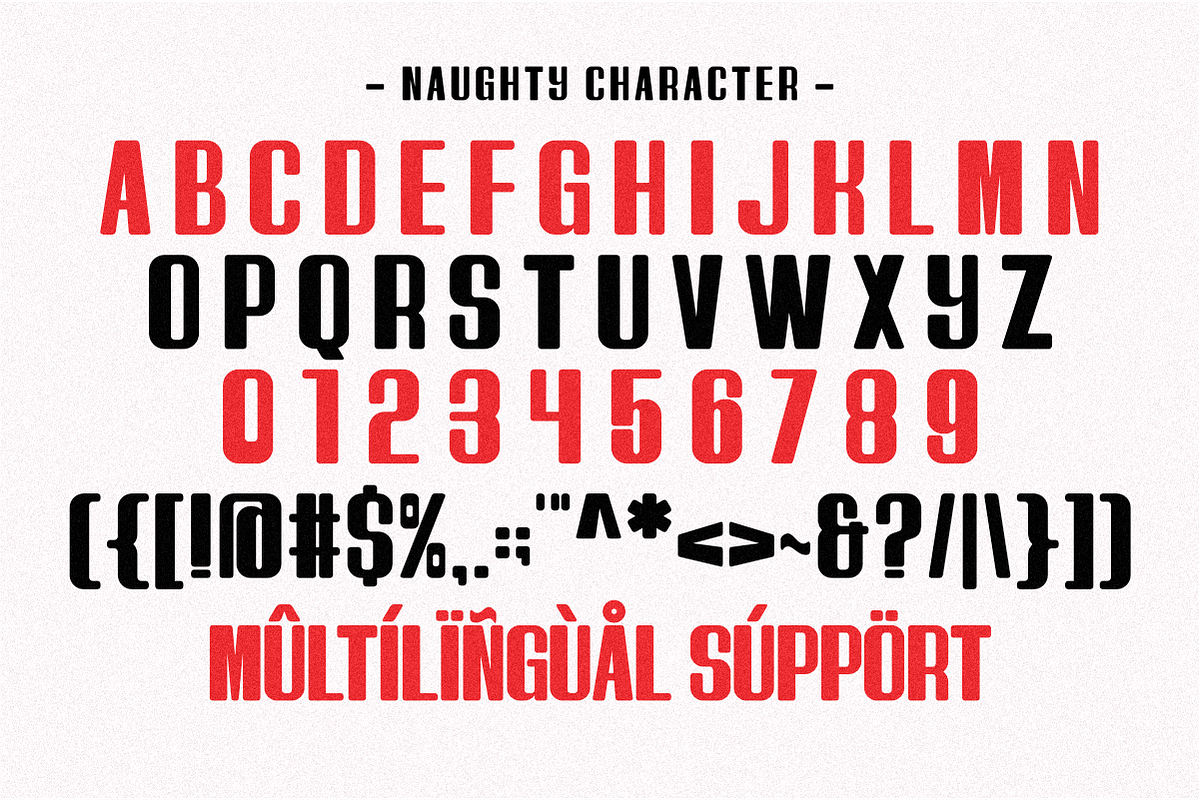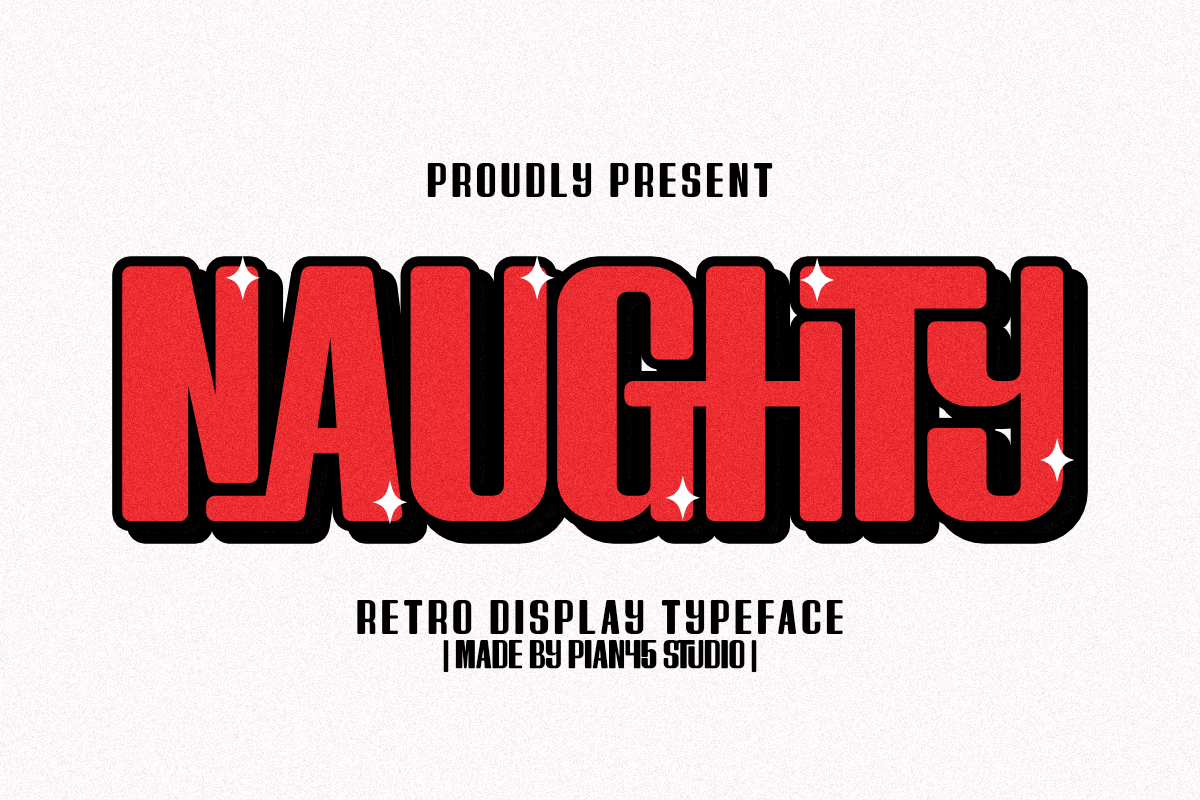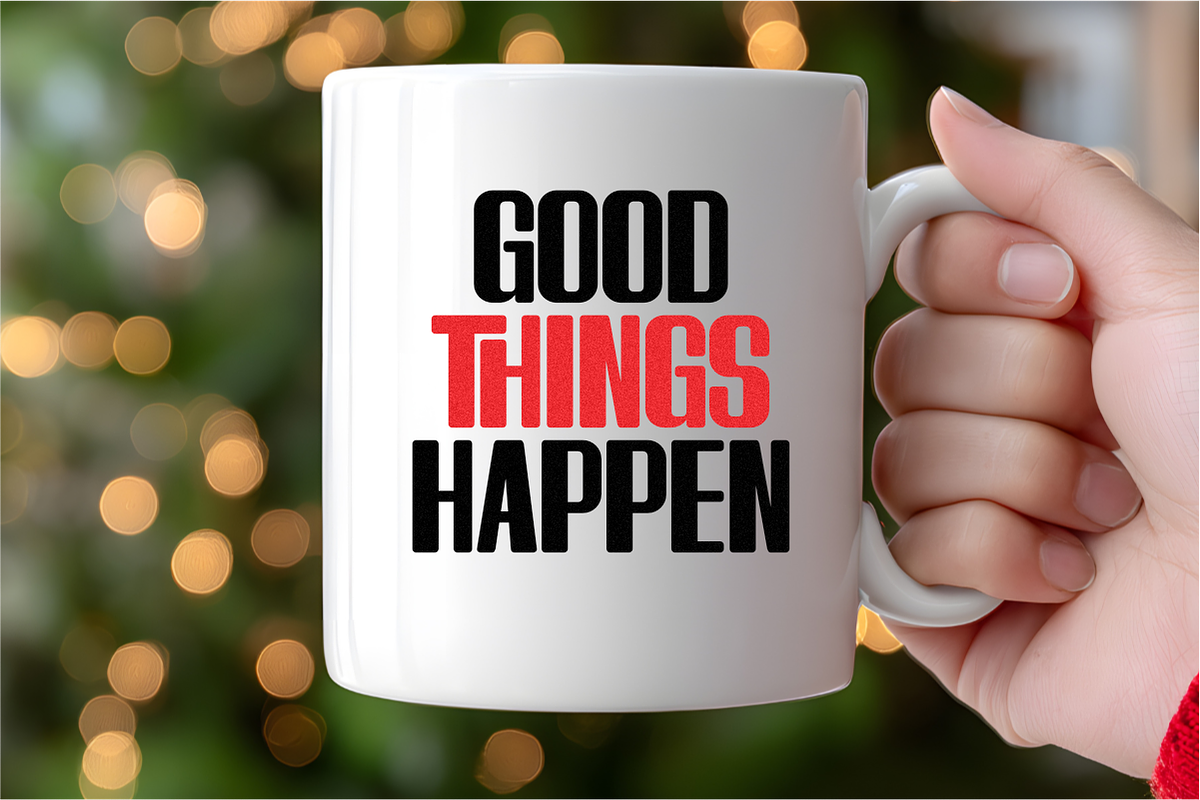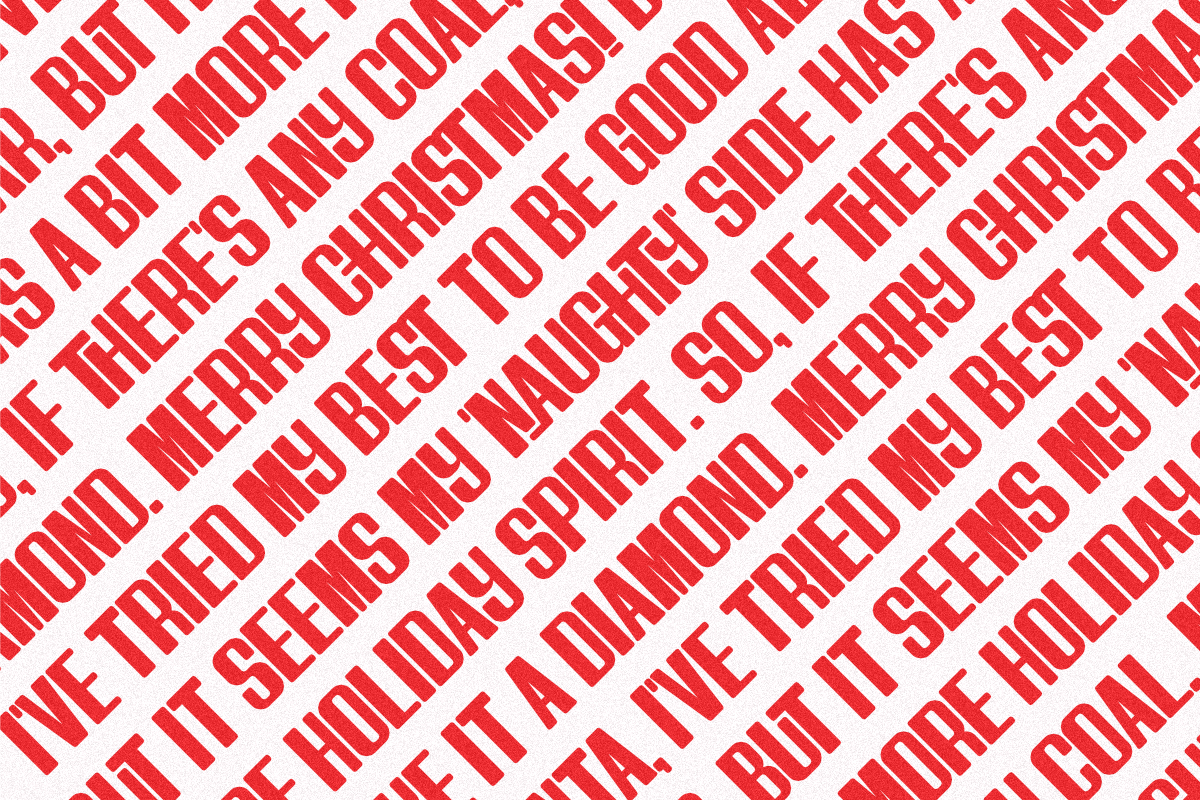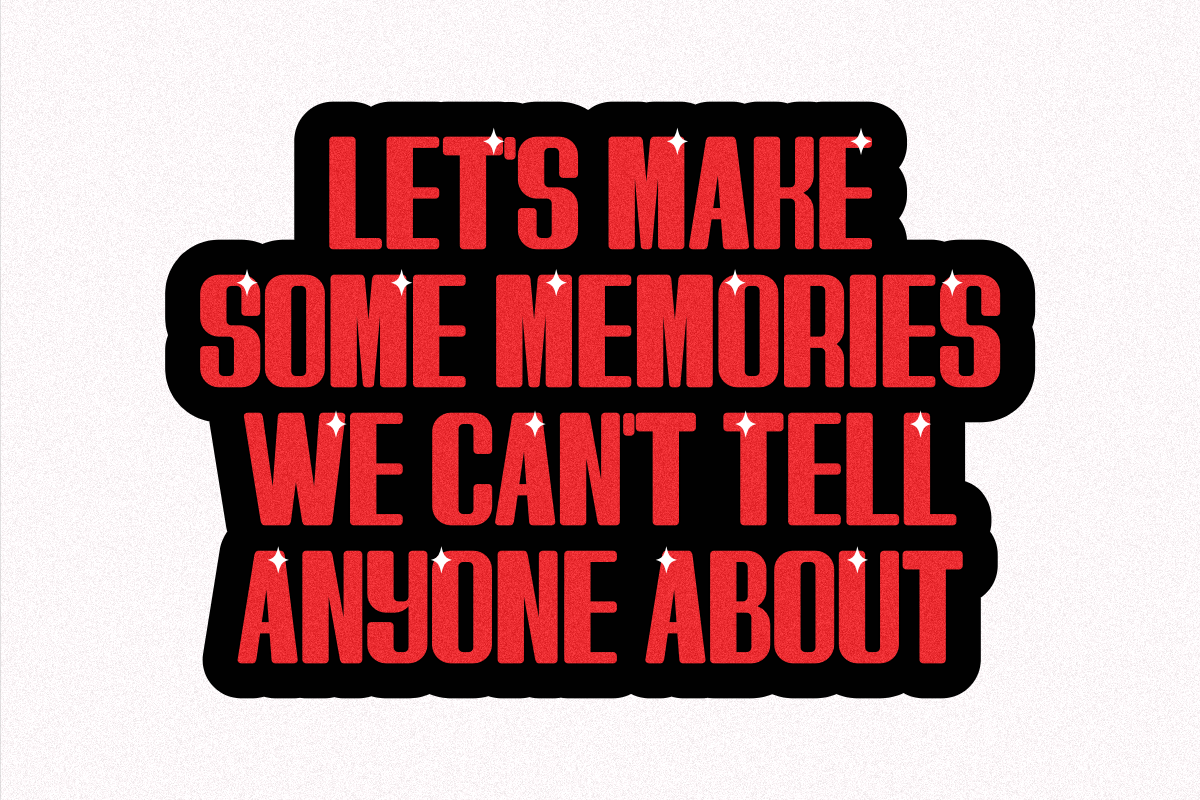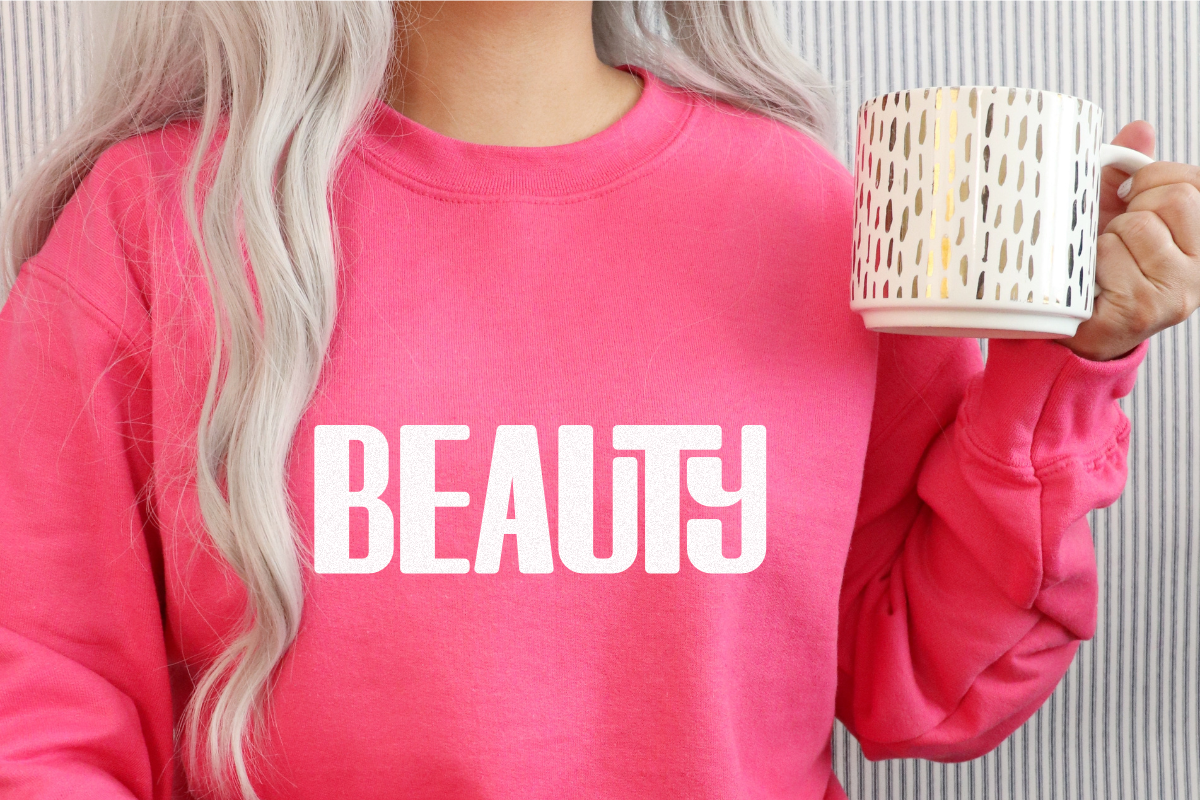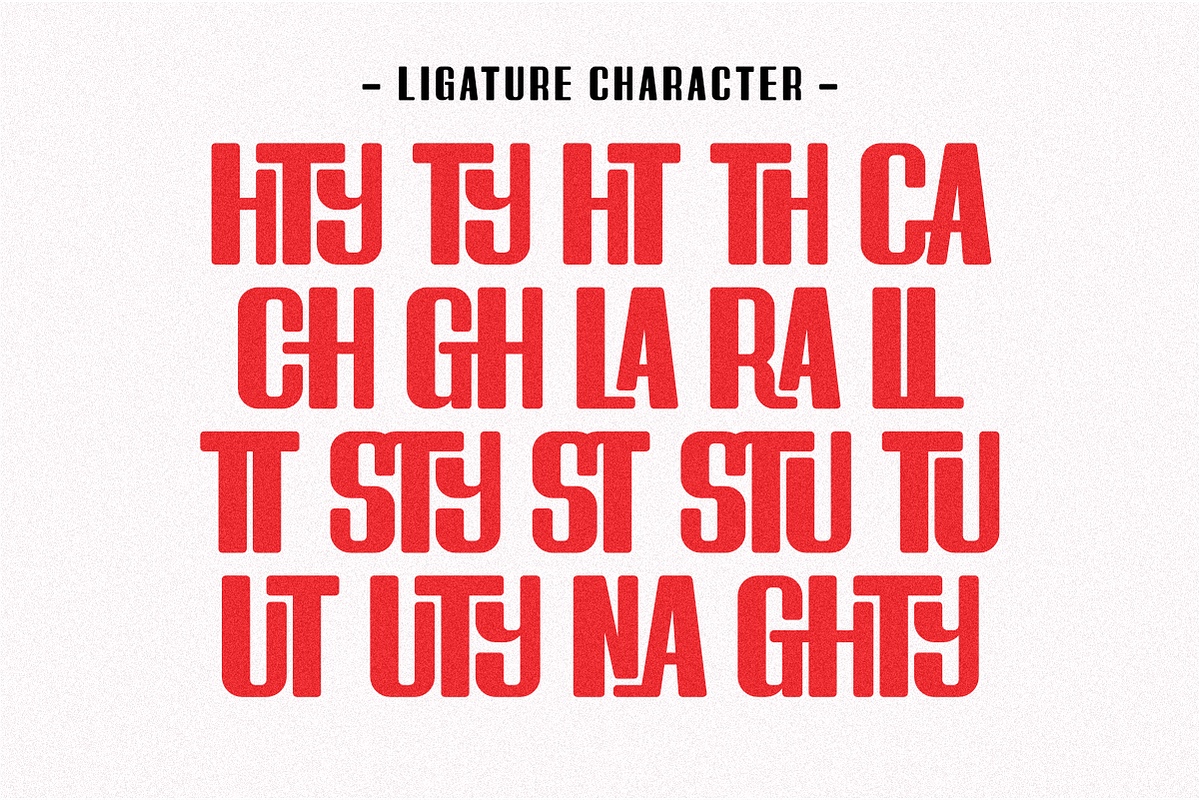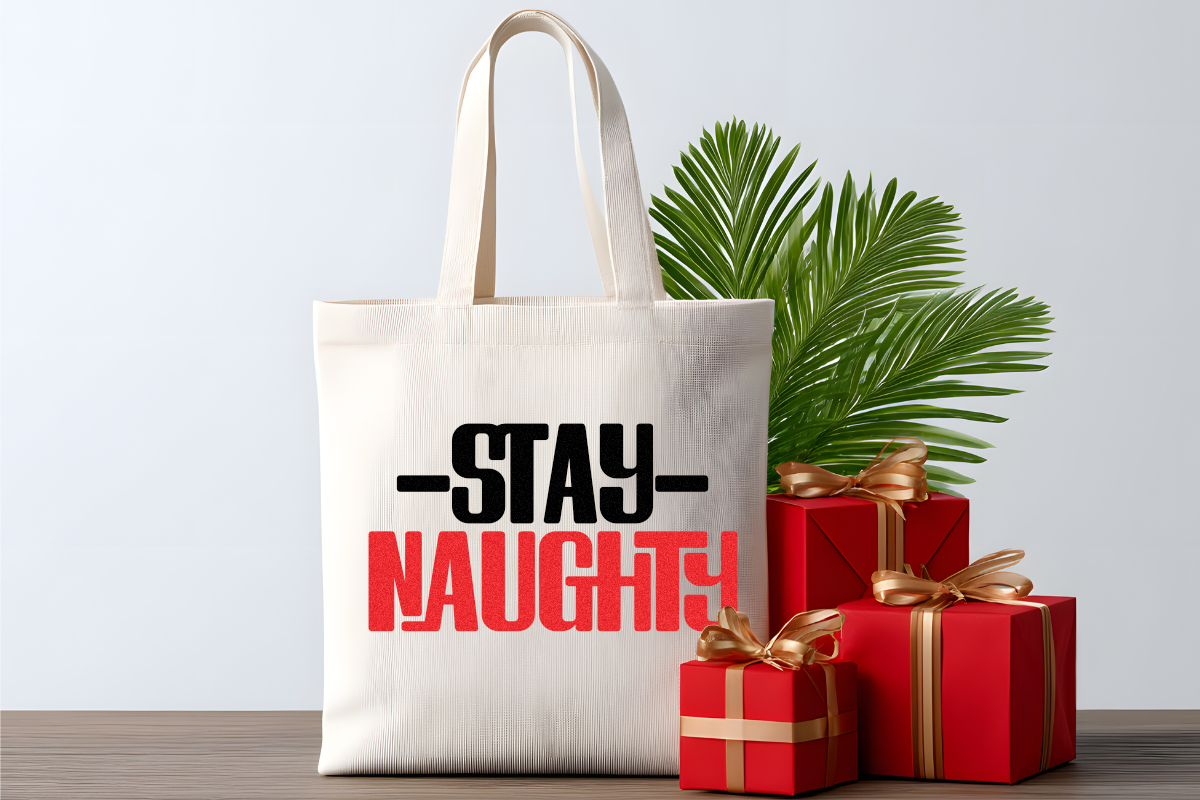
Naughty - Retro Display Typeface
Naughty is a bold, playful Retro Display Typeface that combines chunky, rounded letters with a vibrant, nostalgic feel. Featuring a built-in grunge texture and playful glitter accents, this all-caps font is perfect for holiday merchandise, fun Christmas posters, retro event graphics, and any project needing a lively, high-impact, and slightly mischievous aesthetic for seasonal marketing and apparel.